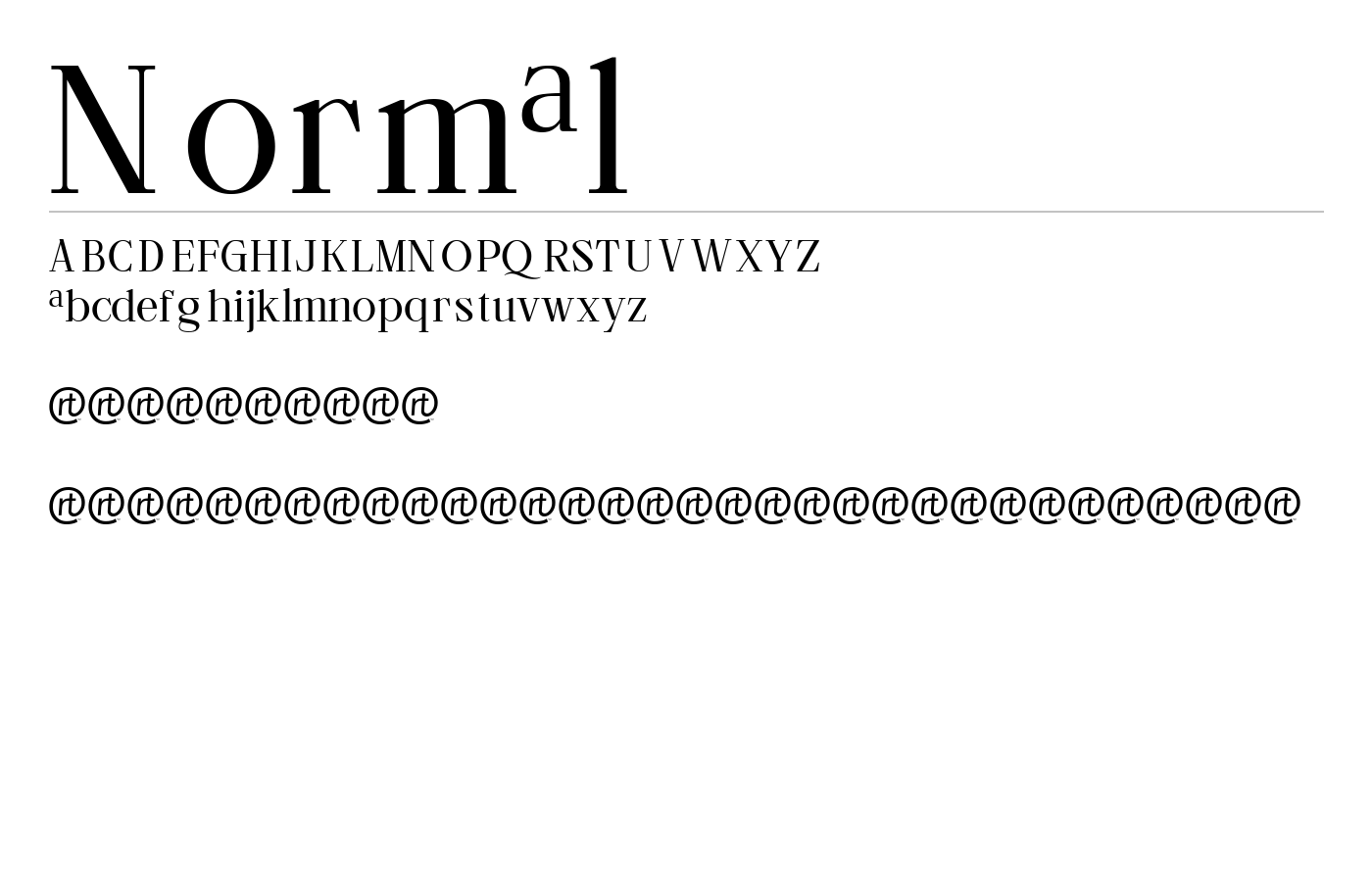
Beliber is a delicate serif font with a refined, old-style character featuring thin, bracketed serifs and noticeable contrast between thick and thin strokes. Its elegant and slender letterforms with distinctive details, such as the single-story ‘a’ and subtle curves, make it ideal for sophisticated editorial work, luxury branding, and stylish headlines that require a classic yet graceful appearance. This font shines in contexts where a sense of tradition and elegance is desired, bringing a timeless and polished feel to the design.
Beliber Font
About Beliber Font
| Designer | Ridwan Fadilah |